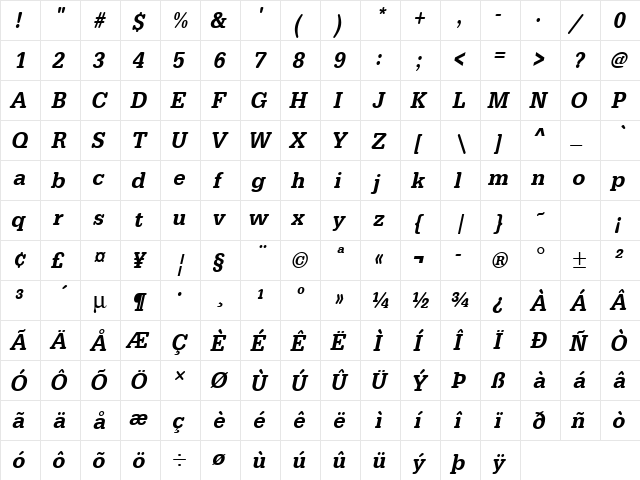
URWTypewriterTMedExtNar Oblique Font Preview
Design Context for URWTypewriterTMedExtNar Typeface
URWTypewriterTMedExtNar brings the precise, column-aligned rhythm of monospaced typography to designs that value technical clarity and systematic order. The dynamic lean of this cut emphasises speed and emphasis in any layout.
Well-suited to data-driven dashboards, coding tutorials, and any design that wants to reference the world of programming.
Pro Tip: Use URWTypewriterTMedExtNar with slightly increased line-height for extended reading — fixed-width spacing can feel dense in longer passages without extra breathing room.